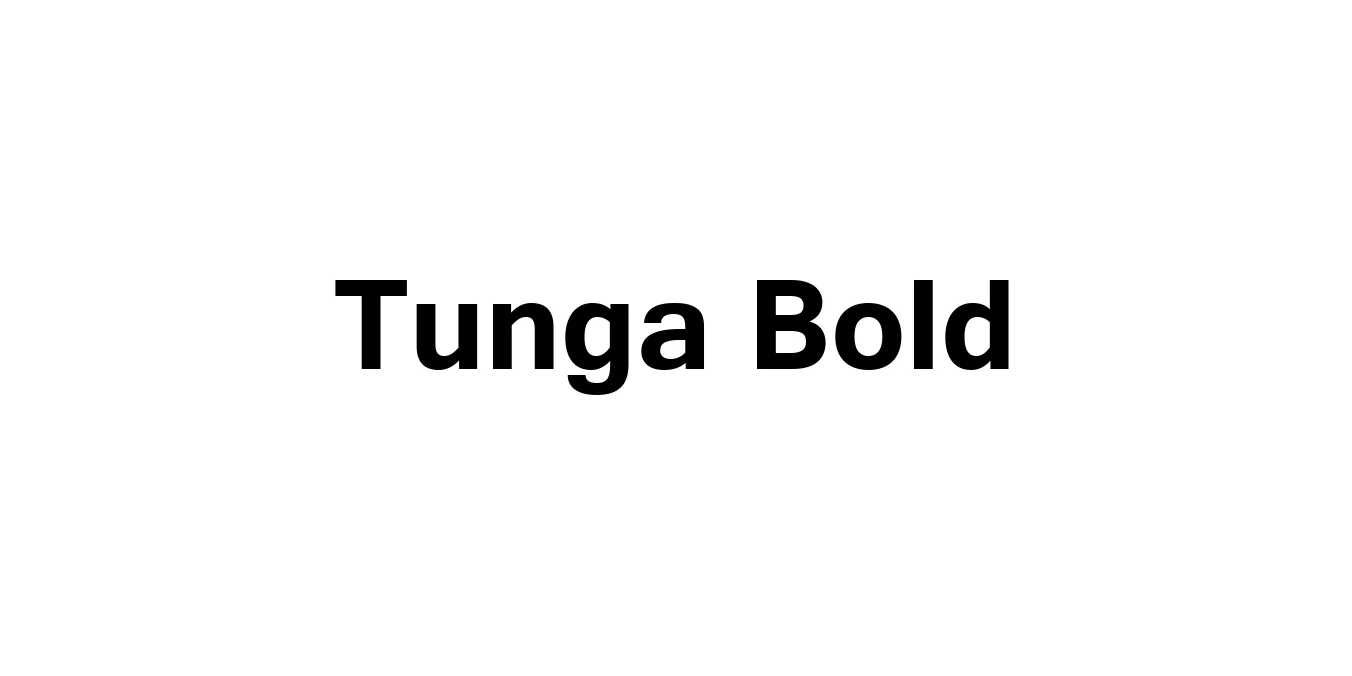
Tunga Bold
Designed by Raghunath Joshi
| Category | Sans-serif / Indic Script |
| Designer | Raghunath Joshi |
Tunga Bold is a prominent Indic typeface specifically designed for the Kannada script. Developed by Raghunath Joshi for Microsoft Corporation, this font was engineered to provide high legibility on digital screens, ensuring that the complex characters of the Kannada language remain clear at various resolutions. Its humanist sans-serif design makes it a versatile tool for modern digital communication within the Indian subcontinent.
As a core component of the Windows operating system's language support, Tunga Bold is widely utilized for user interface elements, web content, and official documentation. The Bold weight provides a strong visual hierarchy, allowing designers to create emphasis and clear headings in regional language layouts. Its balanced proportions and clean strokes help bridge the gap between traditional calligraphy and contemporary digital typography.
Tunga Bold Best Uses
Perfect for clear navigation menus and buttons in localized software.
Optimized for readability in Kannada language websites and blogs.
The bold weight provides excellent impact for titles and section headers.
Suitable for official reports and printed educational materials in regional scripts.